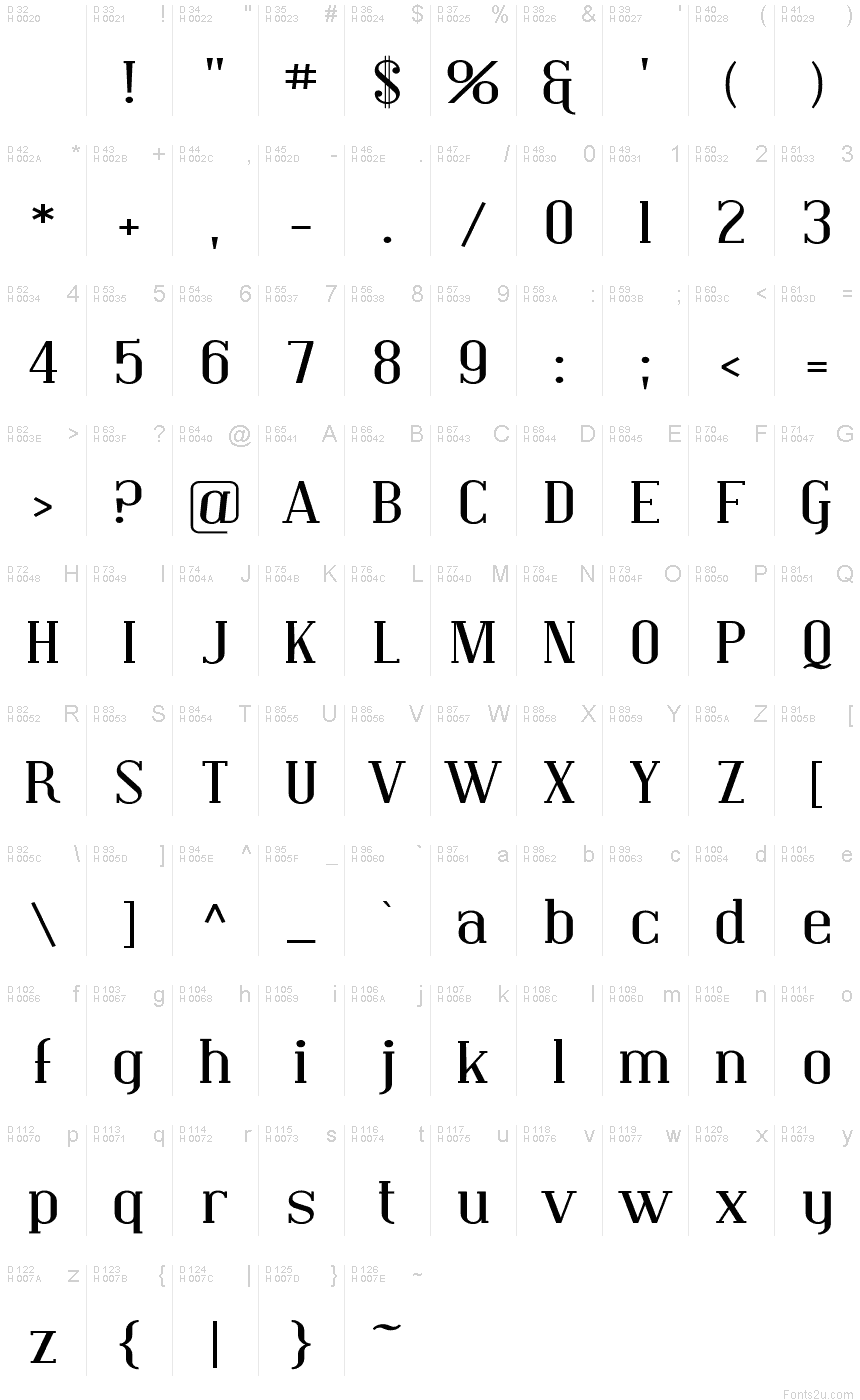
Covington Exp
Covington Exp font by Derek Vogelpohl is a free elegant serif font. Its long, poised proportions and crisp serifs give words a calm, literary polish, with enough air in the spacing to feel graceful rather than stiff.
Using Covington Exp works beautifully for book covers, wedding stationery, boutique branding, editorial titles, certificates, menus, and refined posters. Pair this free font with a quiet sans for captions, and give it room at larger sizes so its measured rhythm can really show.